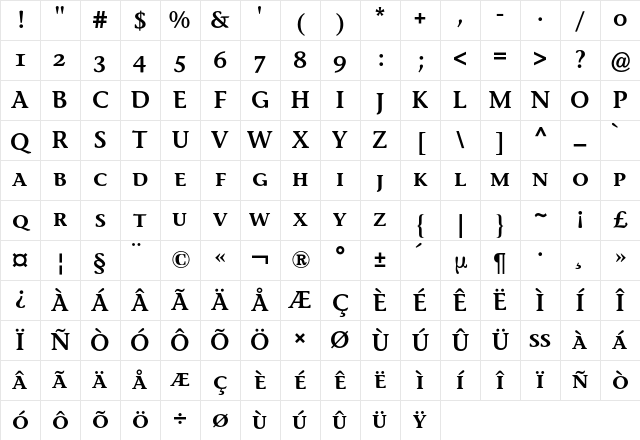
Stone Informal Expert BQ Regular Free Font
Design Context for Stone Informal Expert BQ
Stone Informal Expert BQ is a composed and adaptable typeface that performs quietly and consistently across a wide range of design contexts.
Pro Tip: Use Stone Informal Expert BQ in both headline and body roles to test its range before committing to a single application.